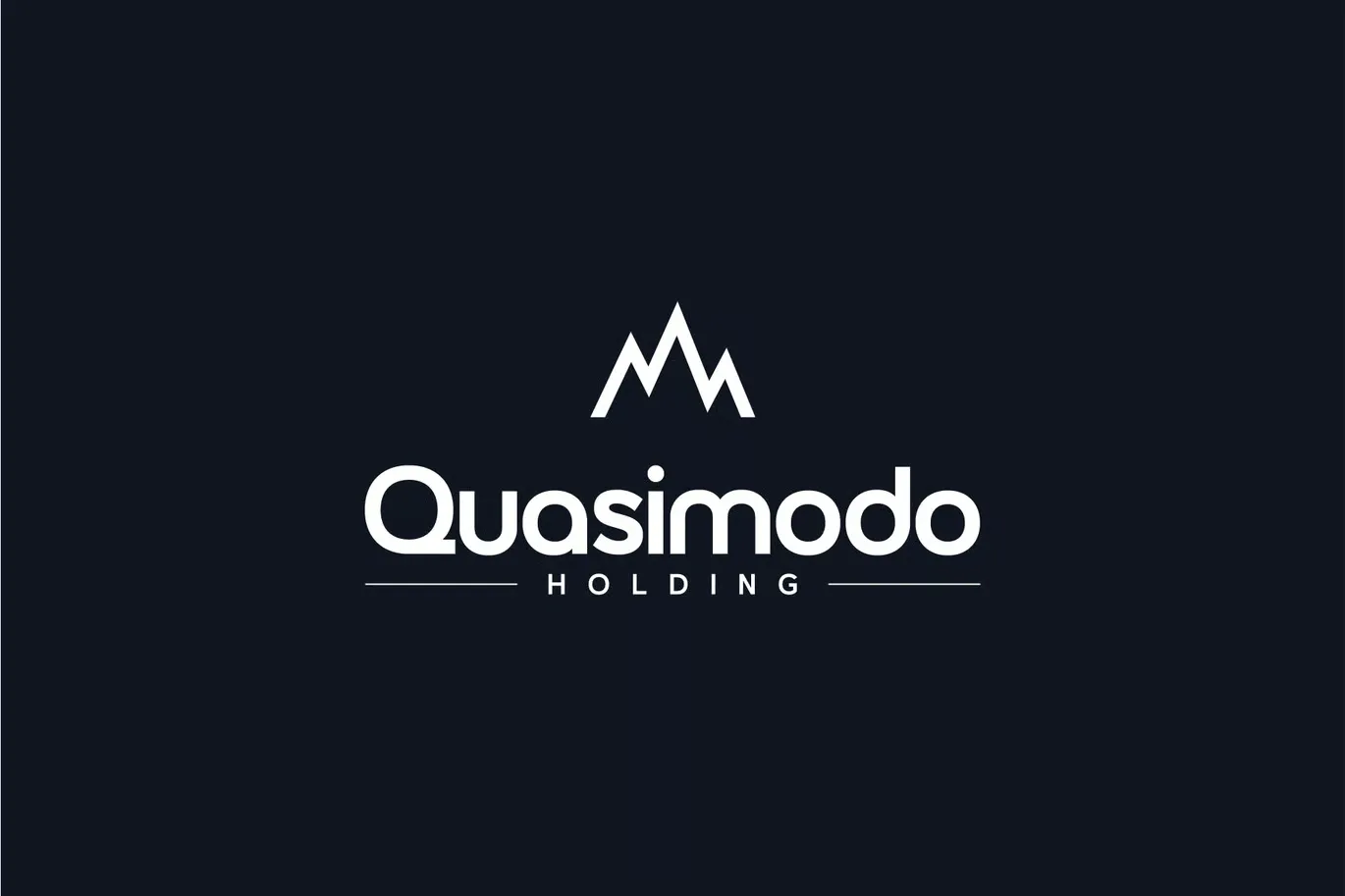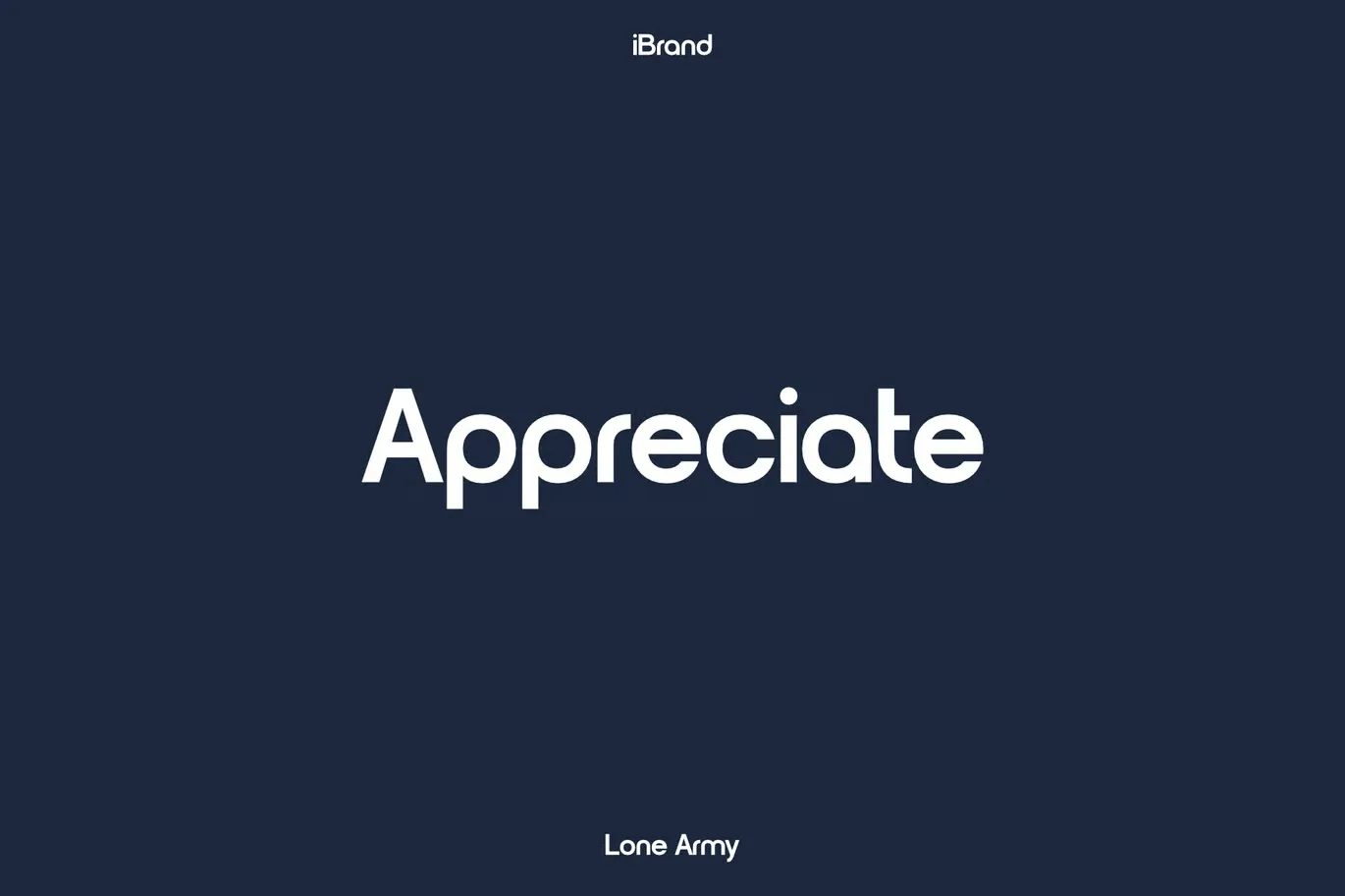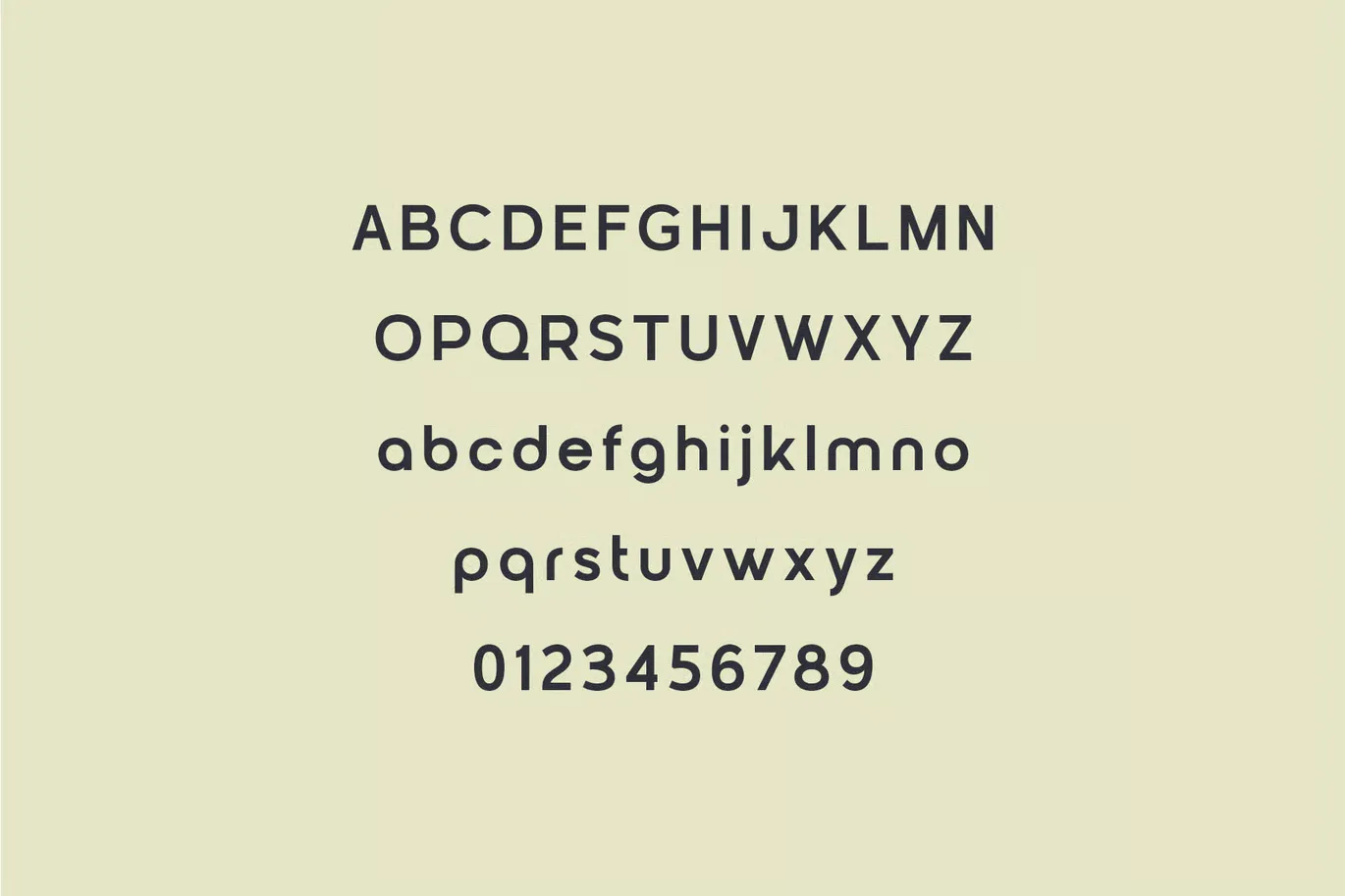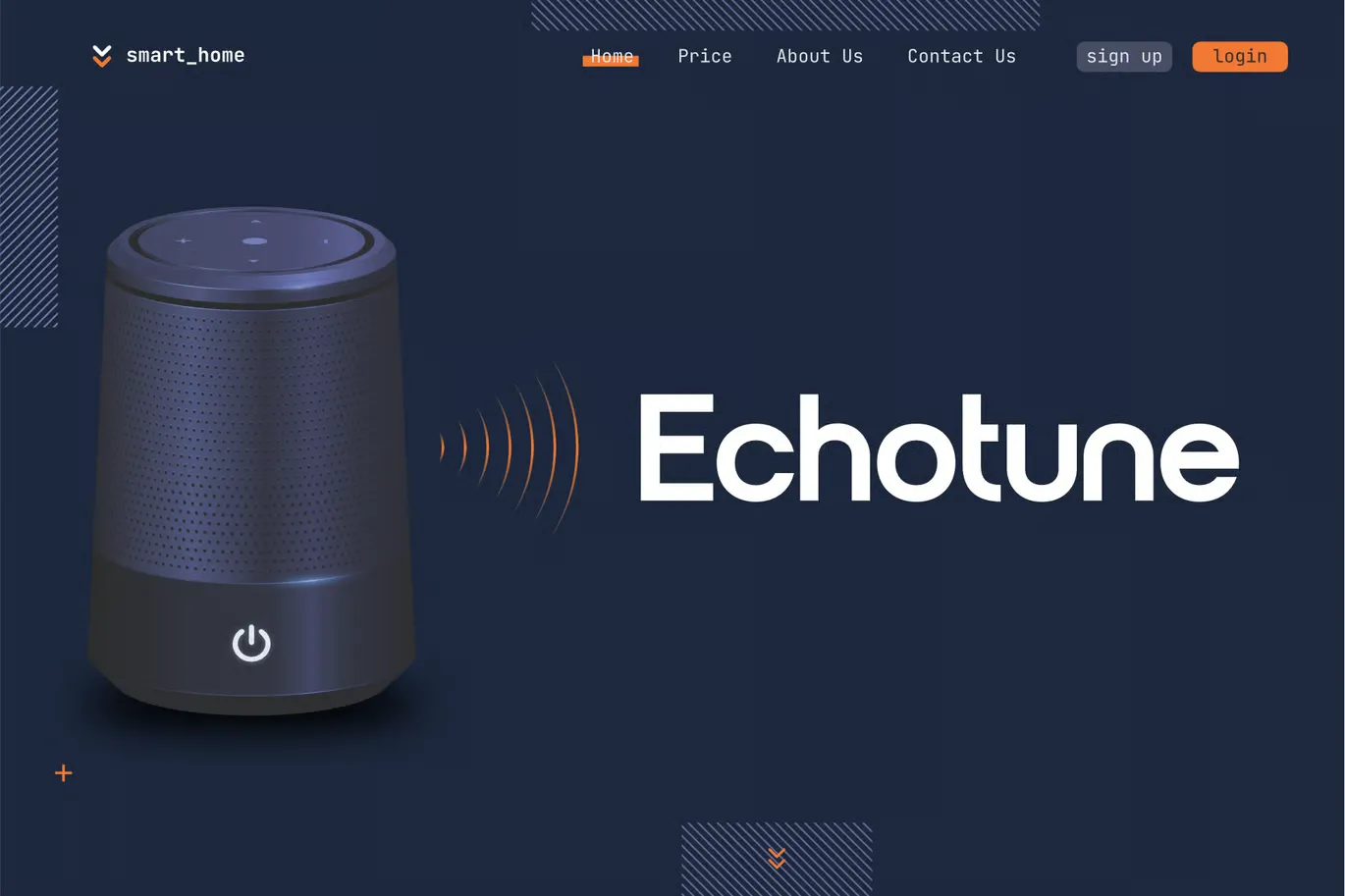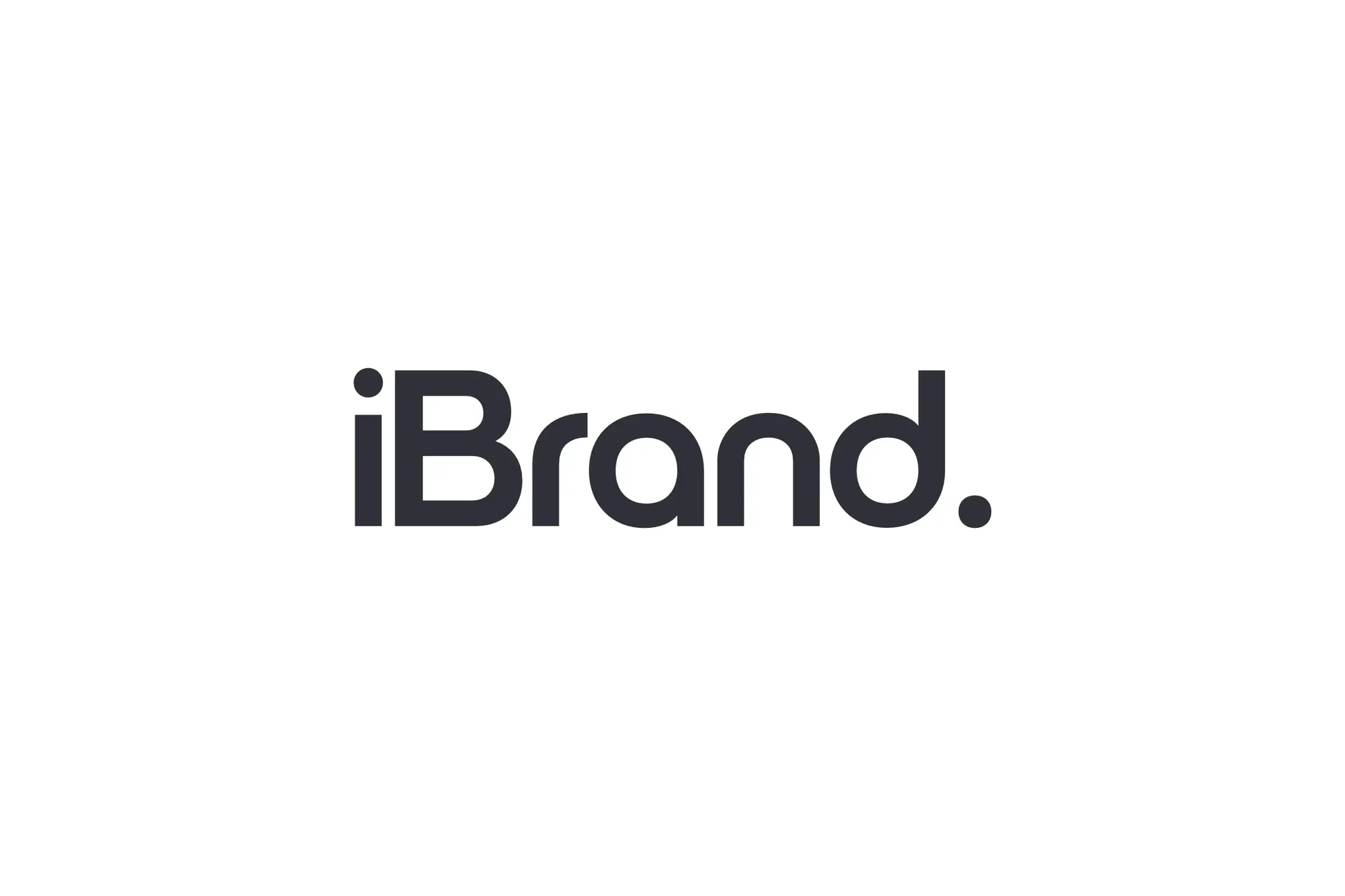
What is iBrand Font?
iBrand Font is a modern sans serif display typeface made for logos, titles, and visual projects. It was created by LoneArmy, a designer known for bold, clean type that balances character and control. This font doesn’t try to do too much. It stays focused on one thing: impact.
The font is precise, with clean geometry and consistent forms. You’ll notice tight spacing and sharp line work. That’s not accidental. iBrand Font is a meticulously crafted typeface designed to bring structure and edge into branding.
This is not just another free font floating around. It comes with style and purpose. If you’re serious about typography, especially for branding, this one belongs in your library of sans-serif fonts.
Features of iBrand Font
The font is clean, consistent, and sharp. It’s made for logos and branding, but it also handles headers and titles with confidence. You can tell from the first preview that this font is built for visual applications where every detail matters.
It uses precise kerning and spacing tailored for bold layouts. Every character is measured and aligned to keep your designs crisp. That’s what helps it create a lasting impression.
iBrand Font ensures your designs feel modern without losing clarity. It’s not ideal for body text, but that’s not the goal. This is a logo font that includes structure, edge, and creative freedom.
You’ll find it works well across digital platforms too. Whether you’re designing a website, a commercial ad, or social media graphics, it holds its form. The font’s shape is strong and smooth, which makes it suitable for anything needing sharp visuals.
I used it in mockups, icon overlays, and brand decks. Every time, it held its shape and elevated the look. For clients who want something unique, this font delivers that clean, modern edge without being overused or generic.
Where Can You Use This Free Font?
iBrand Font works best in bold visual projects. Use it in logo design, headers, or titles that need weight. It’s perfect for branding kits where visual consistency matters.
For digital creatives, this font fits right into website layouts, landing pages, and ad banners. It’s strong enough for commercial use and sleek enough for modern interfaces.
You can also try it in Indesign, for clean print layouts or brand presentations. It performs especially well in typography-first designs where spacing, weight, and balance really count.
Need something with special characters? It includes enough to keep your layout creative without going off-theme. It may not work for every style, but in the right hands, it can elevate any visual project needing edge and clarity.